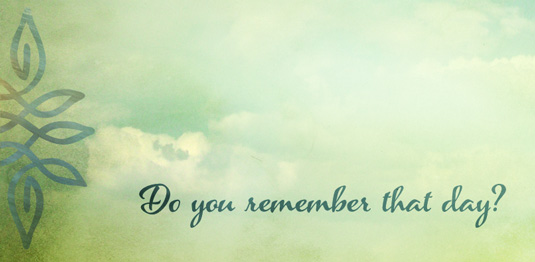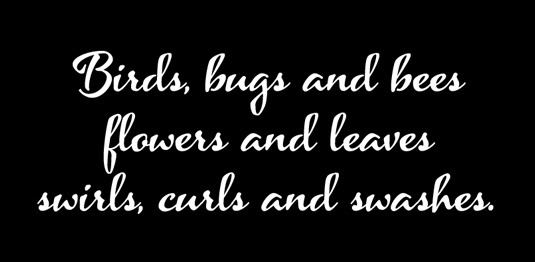
Font of the day: Azalea Smooth
Azalea Smooth by Laura Worthington
Today's font of choice, Azalea Smooth, was created by designer Laura Worthington. Available from HypeForType, Worthington comments on her design: "I love big, round, fancy letters - a beautiful flourishing script. But what I love even more in a script typeface, is a design that is distinctly different. A glimmer of the exotic, a touch of the unusual.
"Azalea is just that, and it possesses the ability to work in many design situations. The clean lines of Azalea Smooth accentuate its jaunty, angular letterfoms, giving it a modern look."